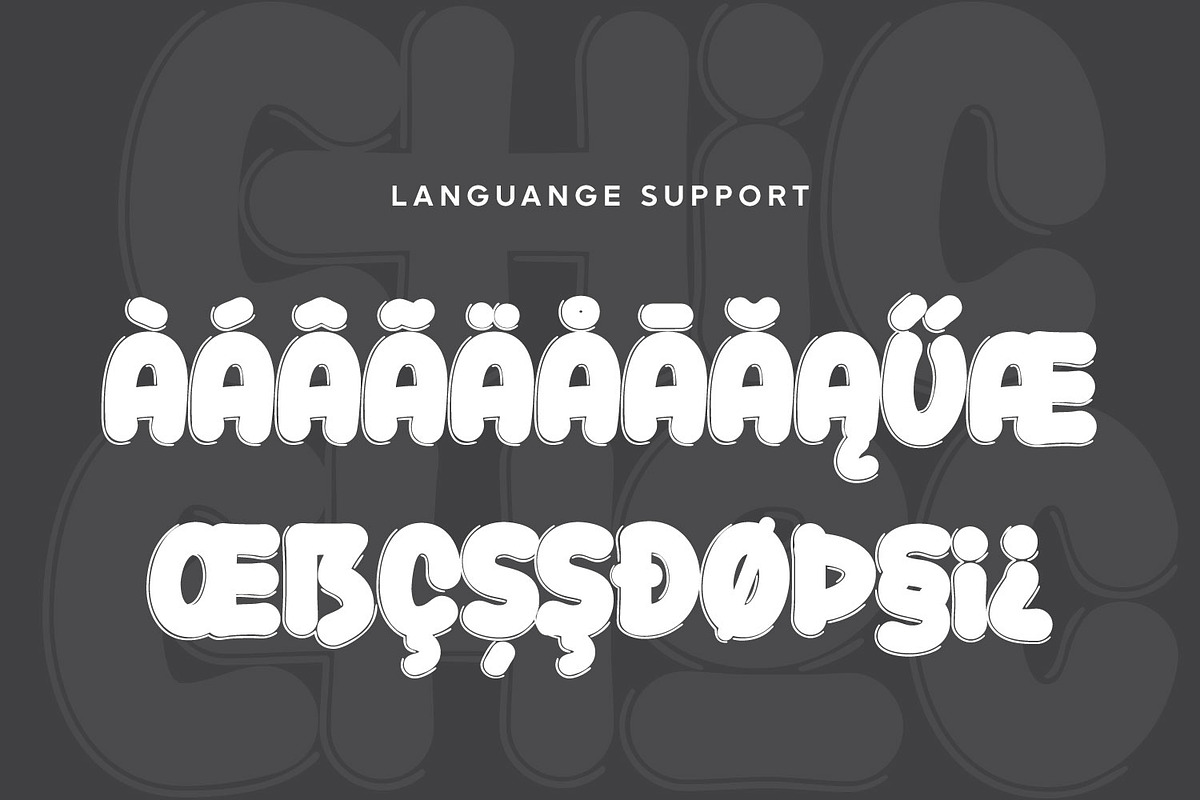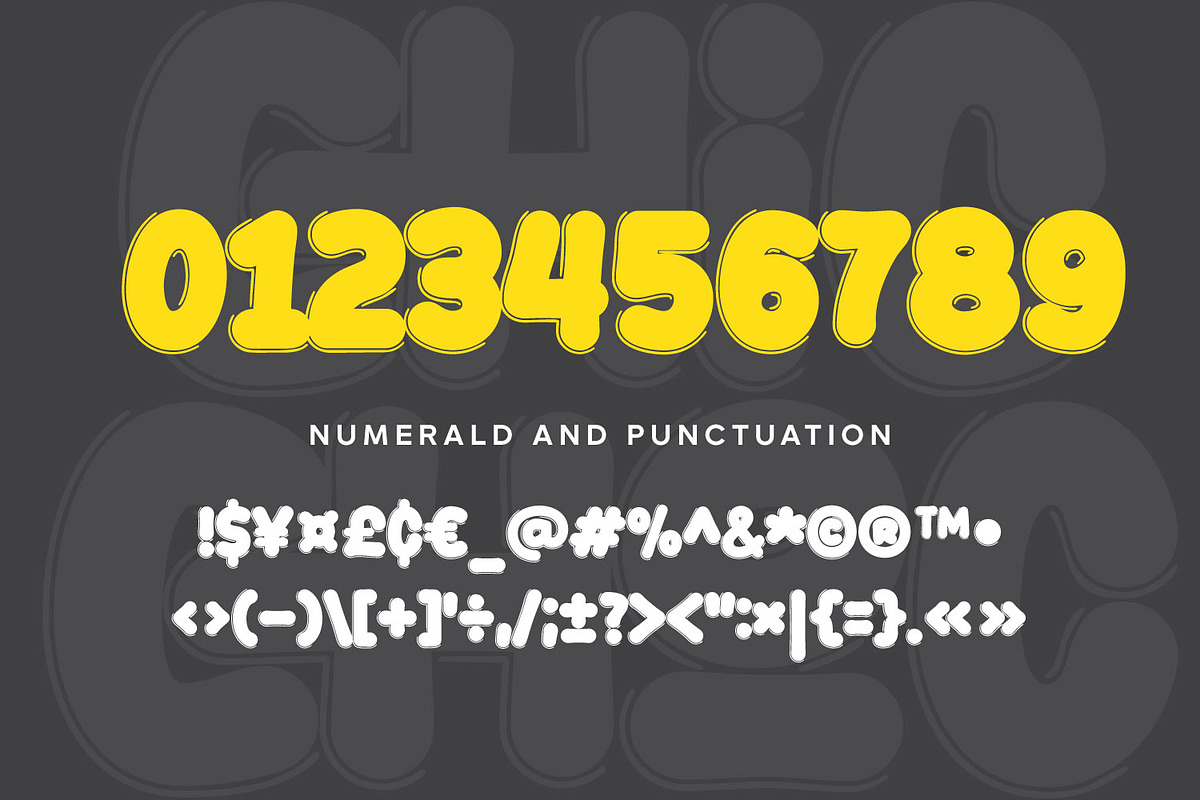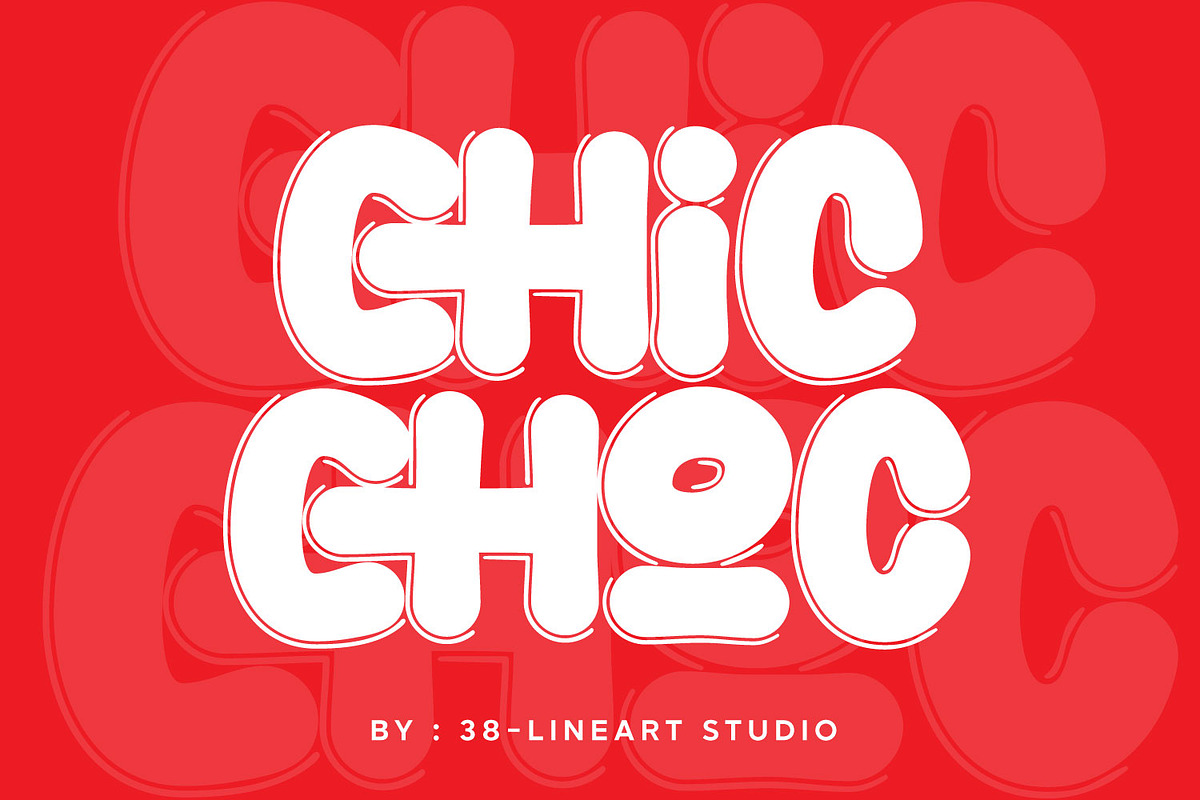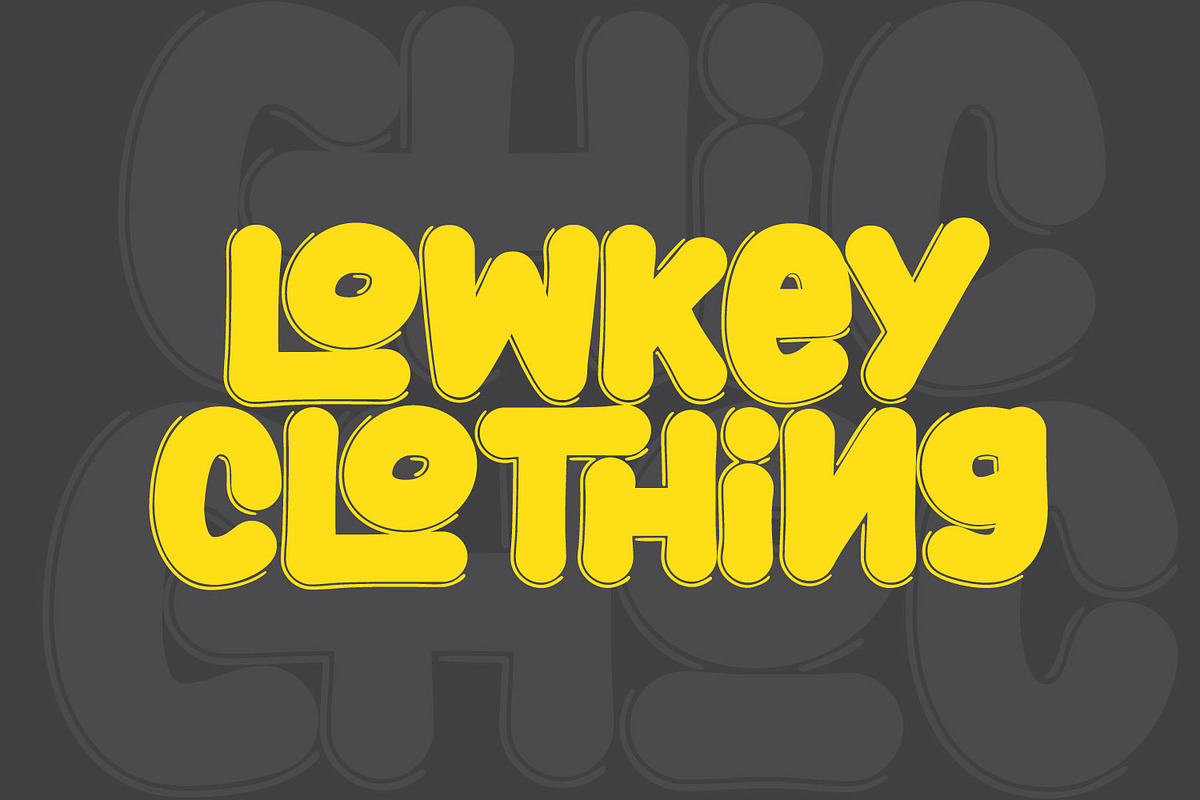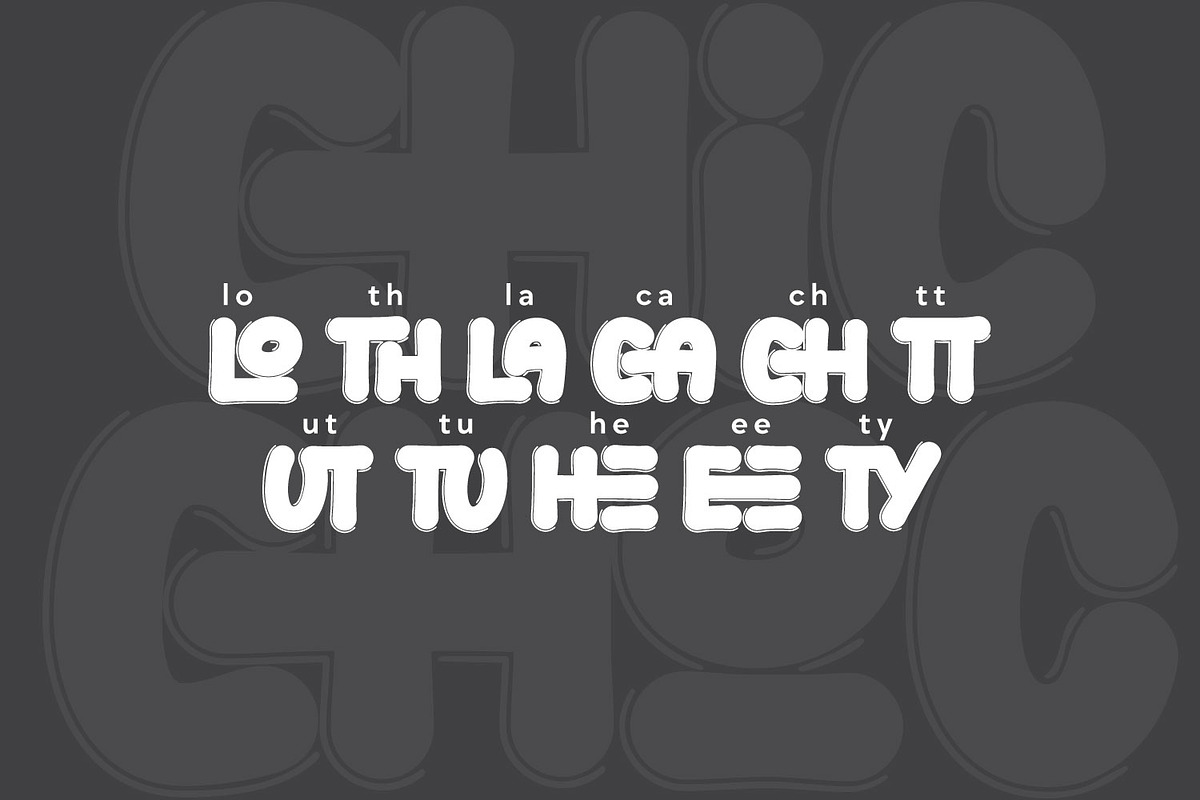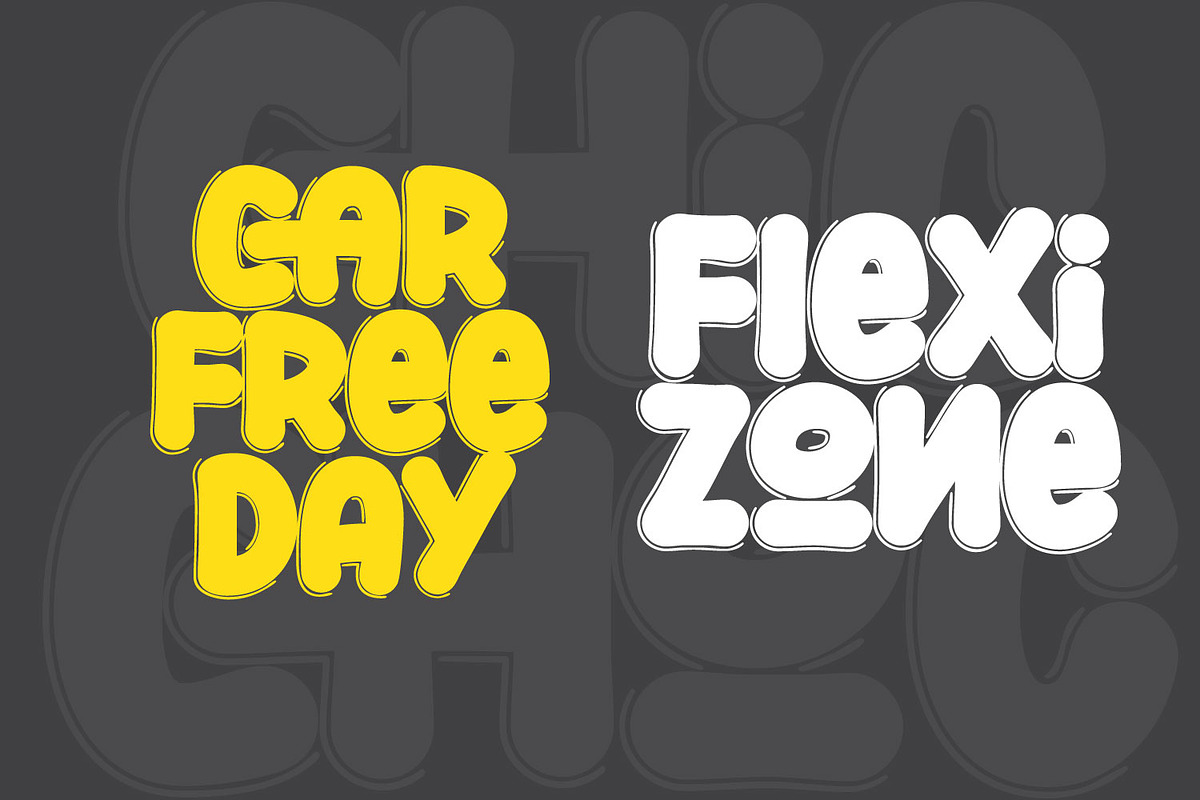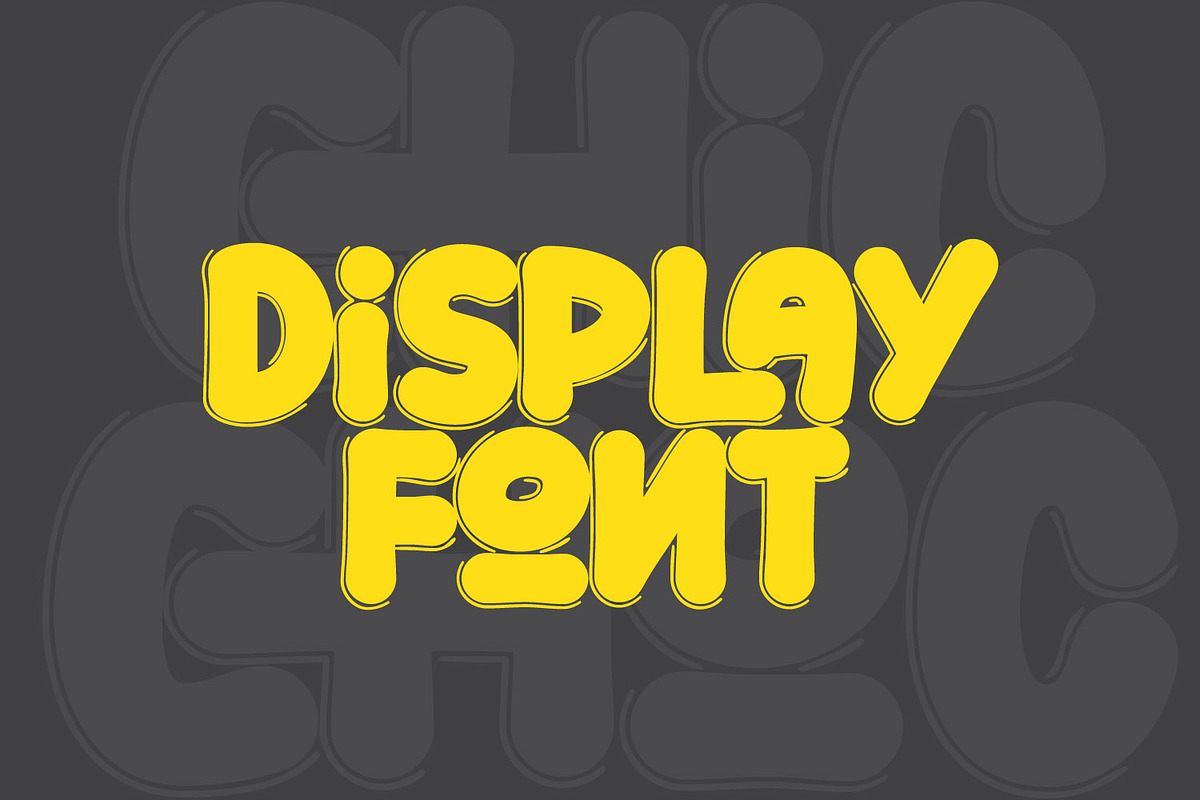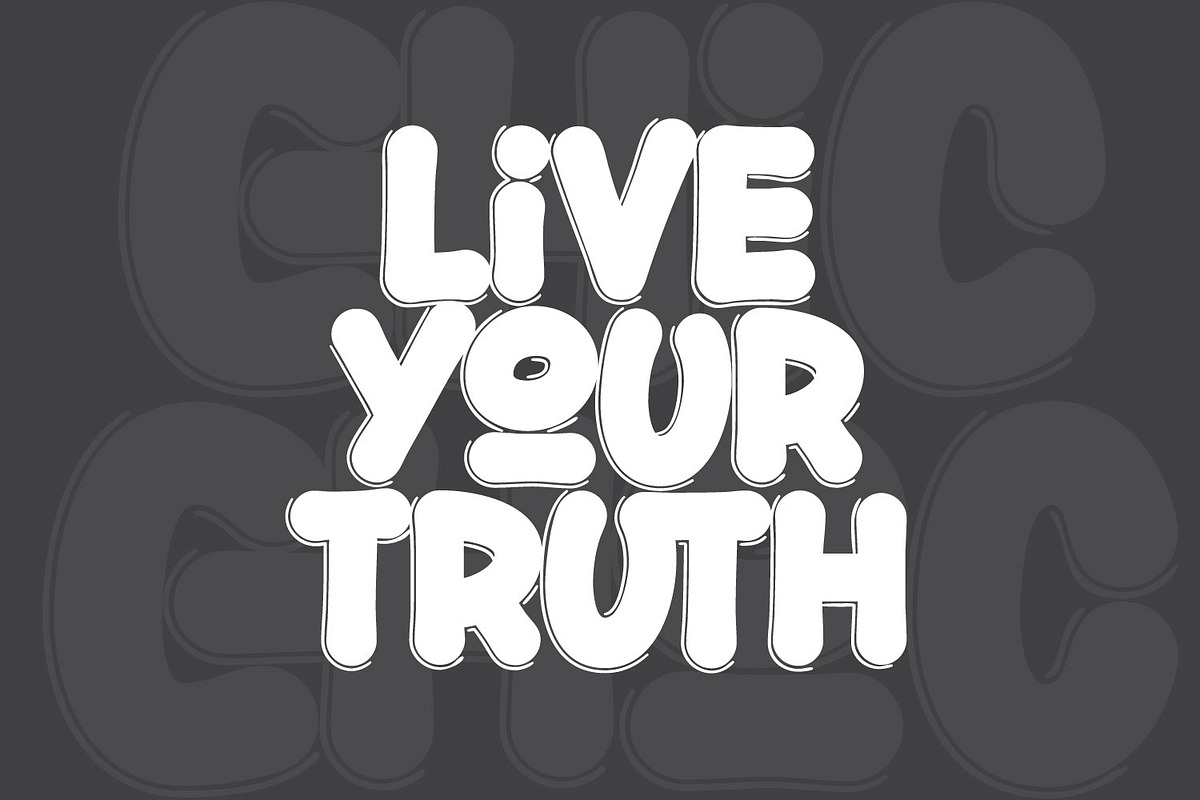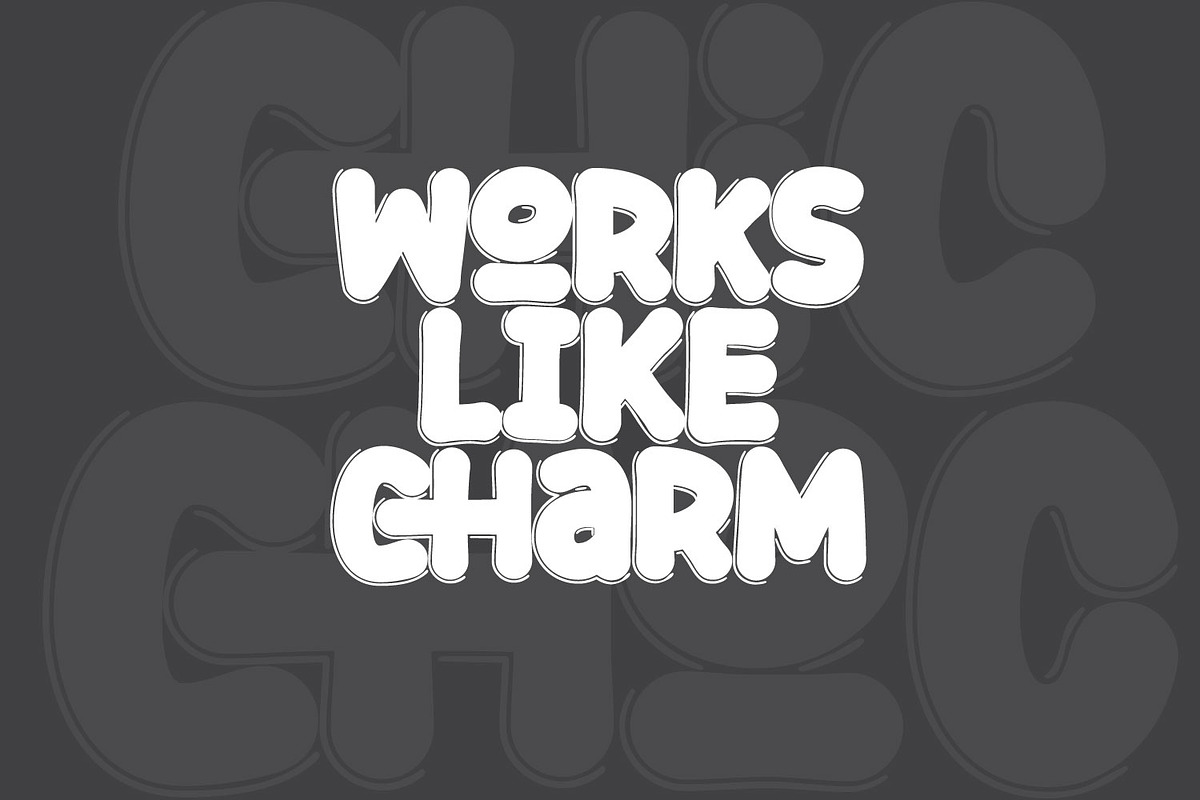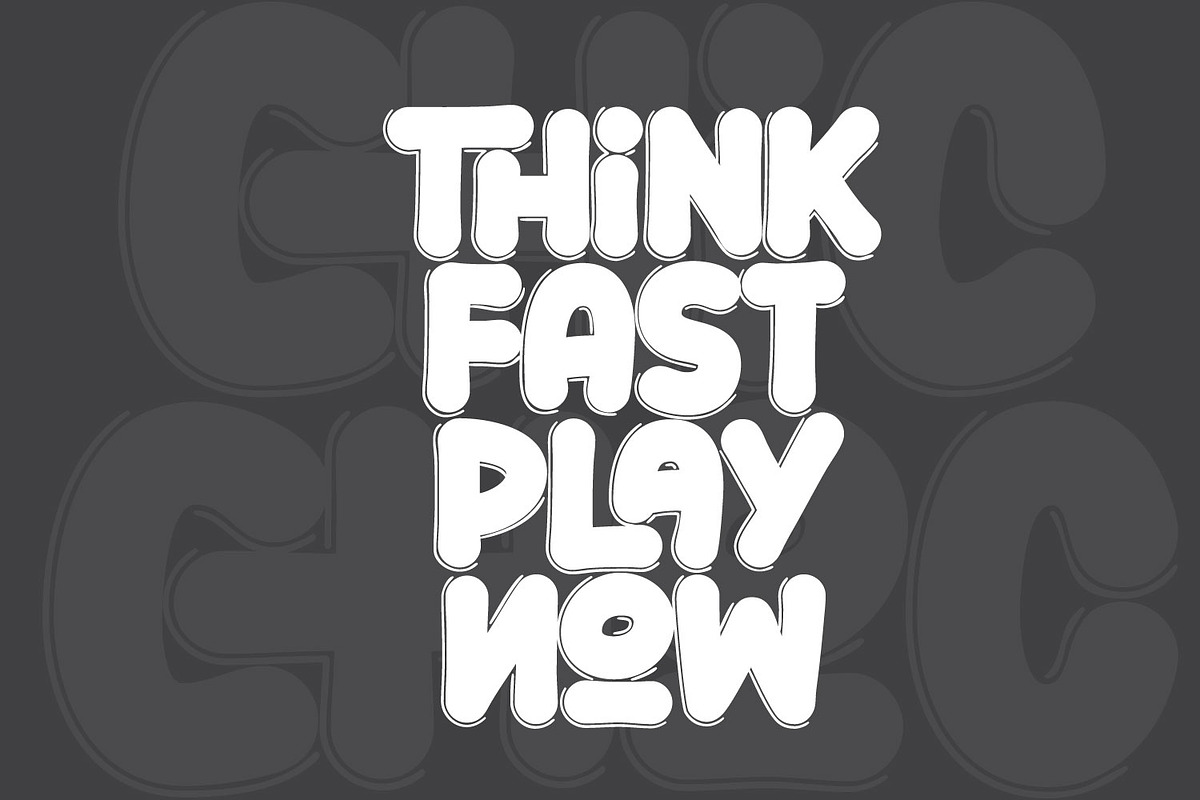
Chic Choc
Chic Choc is a fun, bold, rounded font that mixes uppercase and lowercase letters in a playful and lively way. Its smooth, thick curves give it a soft feel while keeping a bit of funky character. This makes it great for projects that need a cheerful and modern touch, like logos, posters, packaging, or creative branding. The rounded shapes give it a friendly, approachable look that’s still easy to read